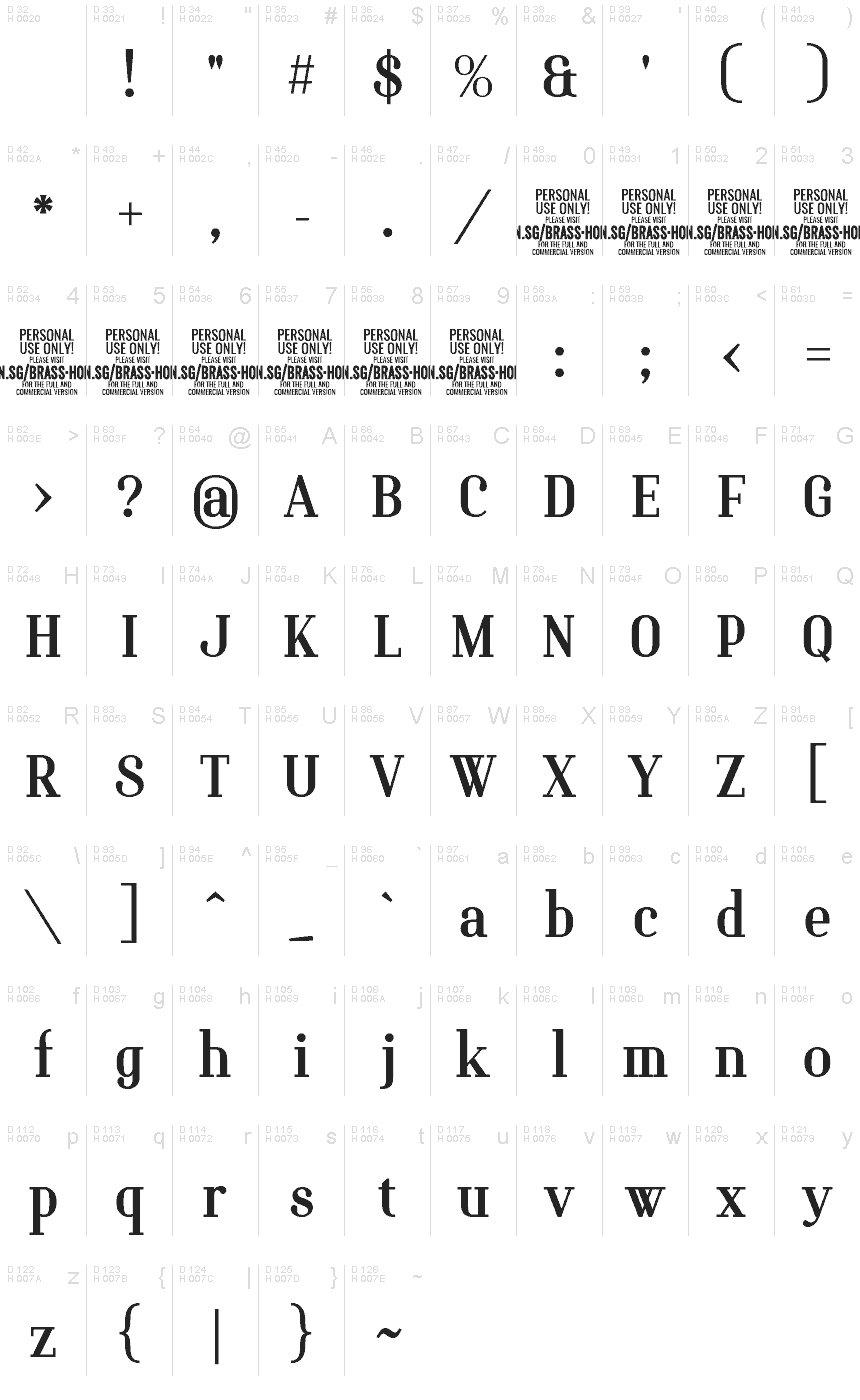
Brass Hopper Body PERSONAL Regular
Brass Hopper Body font by Mans Greback is a sophisticated and elegant free serif font. With a formal and classic style, this professional typeface communicates a traditional tone whenever used. Its solid structures make it long-lasting and suitable even for your oldest books!
Brass Hopper Body is a serif font that embodies structural design.
As a modern geometrical typeface, Brass Hopper features strict shapes and a hint of formality.